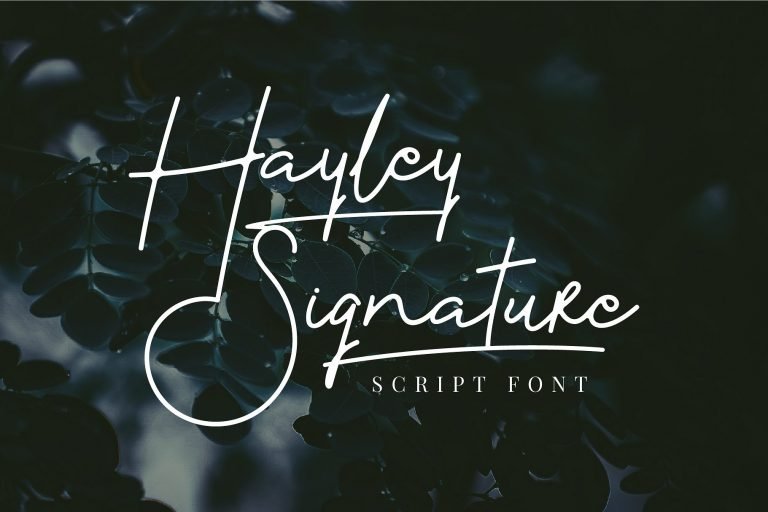
Hayley Signature Font
Now we are proudly presenting you a handwritten script font which will satisfy all your design needs. Introducing Hayley Font. It is designed by yellowline. A monoline font script for your projects that need handwriting feels. Hayley Signature has been created to make your design looks elegant, classy, and beautiful. You can use me for logo type, packaging, product design and of course for your signature.